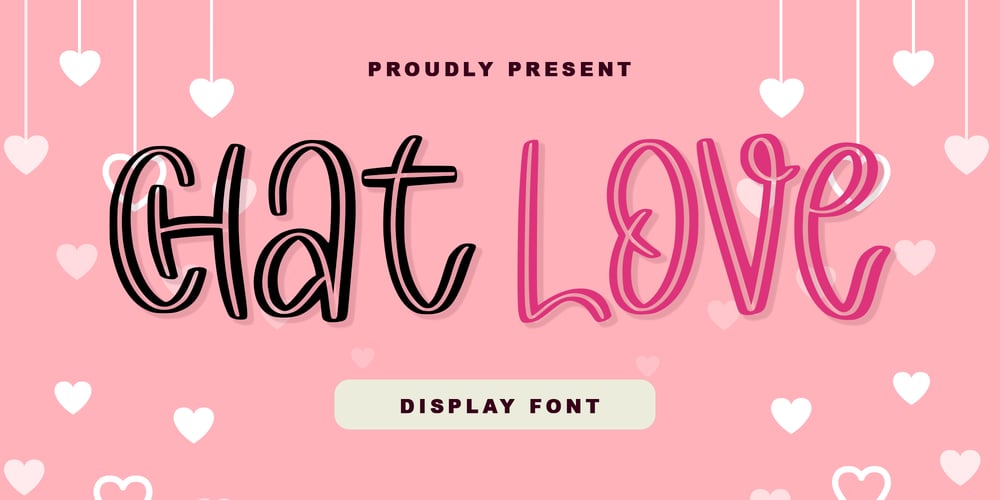
Chat Love Font Family was designed by Alif Ryan Zulfikar and published by Sakha Design. Chat Love contains 2 styles and family package options. Chat Love is a cute and adorable display font. Fall in love with it and bring your projects to the highest levels!